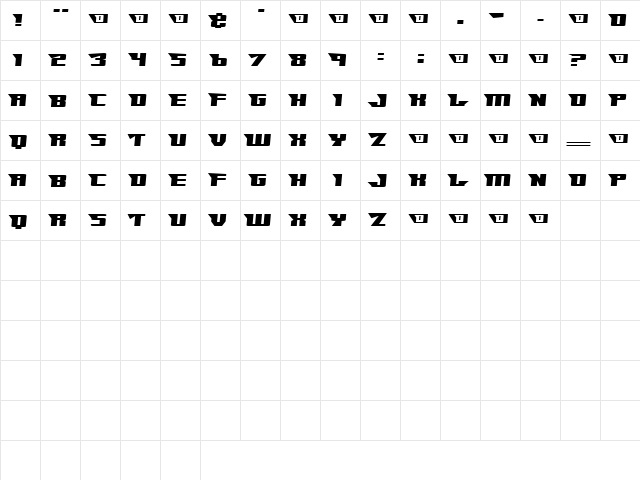
Seven Regular
Design Context for Seven Typeface
Seven is a composed and adaptable typeface that performs quietly and consistently across a wide range of design contexts.